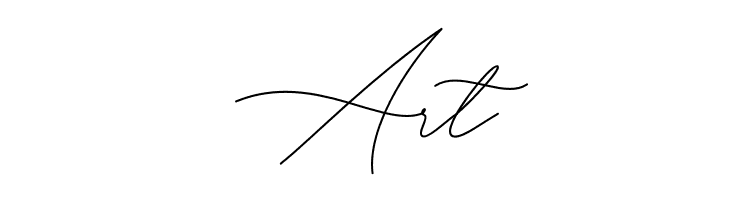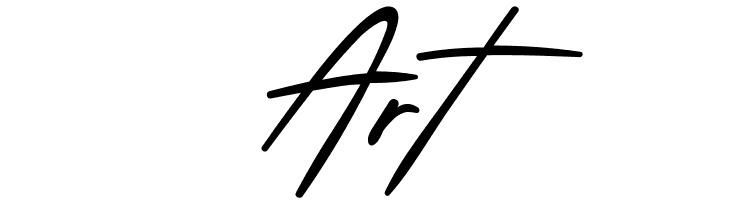
( Fonts by Dav studio )
A playful and whimsical font with rounded, bold letterforms.
( Fonts by Billy Argel Fonts ® )
A bold, space-themed decorative font with playful star and planet motifs.
A dynamic and fluid script font with elegant cursive letters.
( Fonts by Din Studio )
A bold, ornate blackletter font with sharp edges and historical elegance.
An elegant script font with flowing, interconnected letters and intricate flourishes.